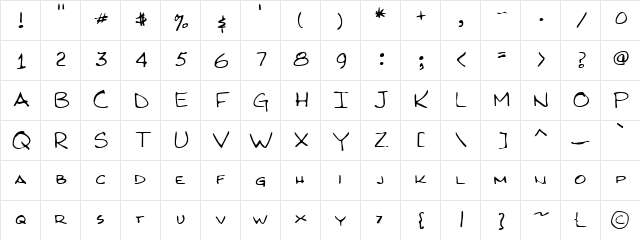
Kilroy Was Here Normal Free Font
Kilroy Was Here Normal
Design Context for Kilroy Was Here
Kilroy Was Here is a composed and adaptable typeface that performs quietly and consistently across a wide range of design contexts.
Pro Tip: Use Kilroy Was Here in both headline and body roles to test its range before committing to a single application.